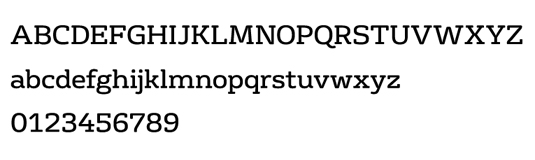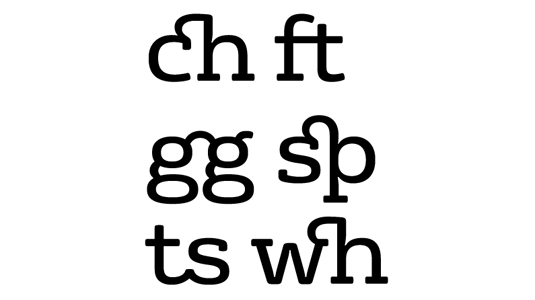
Greatest fonts countdown: 84 - FS Rufus
We're counting down the 100 greatest typefaces in existence. Here is number 84...
FontShop AG, the renowned type foundry, conducted a survey based on historical relevance, sales at FontShop.com, and aesthetic quality. With a few additions from the experts at Creative Bloq and Computer Arts magazine, the best fonts ever were selected for the new book, 100 Best Typefaces Ever.
But without further ado, here is the 84th best typeface…
84. FS Rufus
- Emanuela Conidi, Mitja Miklavčič and Jason Smith, 2009
Fontsmith is a leading boutique type foundry founded by Jason Smith in 1997. FS Rufus – like many of the foundry’s faces – is full of character. Described by Fontsmith as "a cheeky offbeat, quirky and benevolent design" with "wide forms and curious ink-traps that combine to make an uncommon and unique personality," FS Rufus is great at both headline and text sizes. Its beautiful, flowing ligatures are of particular interest at display sizes. FS Rufus comes in five weights and is "carefully crafted to enhance the meaning of words." A workhorse with a creative streak.